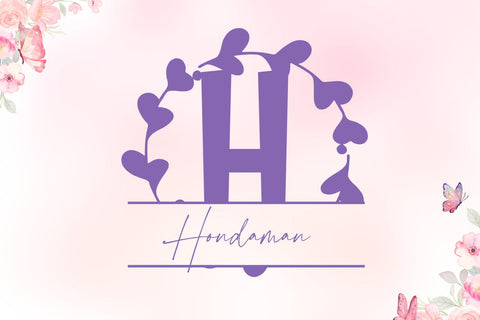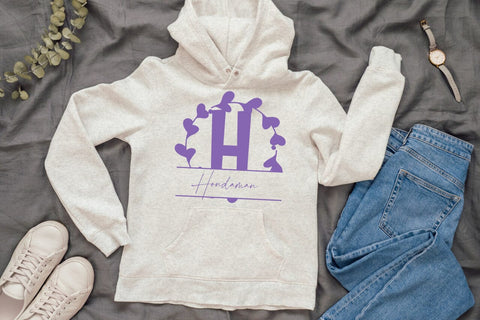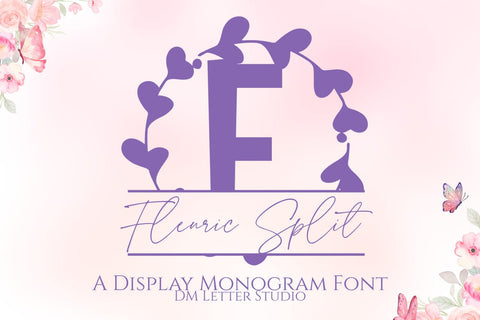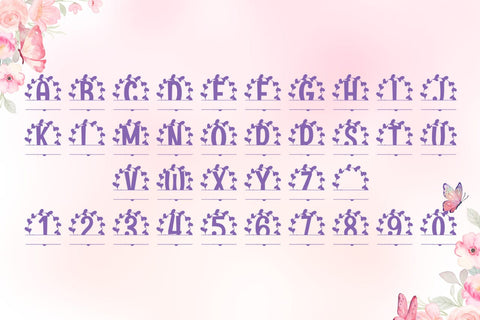
Fleuric Split Monogram Font
Meet Fleuric Split Monogram Font
Fleuric Split Monogram Font turns initials into elegant nameplates in seconds. The letterforms feel botanical and refined. The center split leaves space for names, dates, or short words. Because spacing stays balanced, results look polished with minimal effort. Use it for wedding gifts, family signs, door hangers, tumblers, and ornaments. Moreover, this Split Monogram Font pairs beautifully with clean sans or light scripts, so layouts stay readable and calm.
Where this Split Monogram Font shines
Set a single initial and place the family name inside the split. Then try couple names, venue names, or words like “Home” and “Welcome.” Since proportions favor clarity, designs scale from wall art to tiny tags. As a result, Fleuric Split Monogram Font works perfectly for Cricut, Glowforge, laser projects, and vinyl.
Design tips for Fleuric Split Monogram
Keep the main initial large to showcase the botanical flair. Place the split line at center or slightly low for balance. Meanwhile, choose a simple secondary font for the name inside the split. Because Fleuric feels airy, metallic accents and wood textures add instant value. Try champagne with charcoal, blush with espresso, or navy with gold. However, keep names short so everything remains readable at small sizes.
Uppercase alphabet optimized for split monograms
Matching lowercase, numbers, punctuation
Curves tuned for engraving, foil, laser cutting, and vinyl
Why makers choose this Split Monogram Font
You want fast personalization that still looks high-end. Fleuric Split Monogram Font delivers. It helps you craft custom gifts, signs, and décor in minutes. Also, it keeps your brand style consistent across many product types. Therefore, one font can anchor a full line of name-ready pieces.